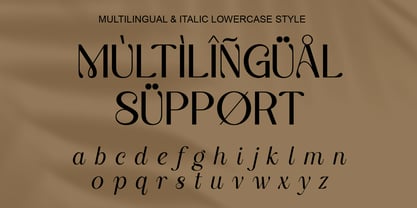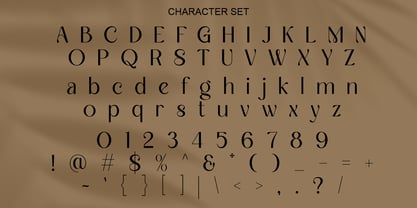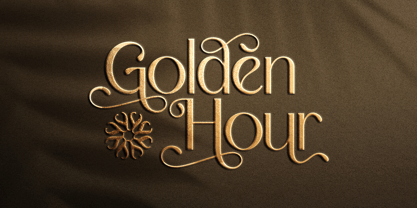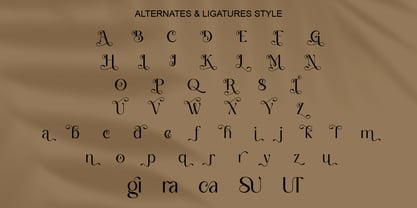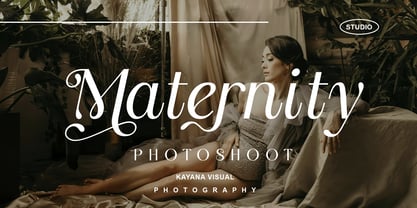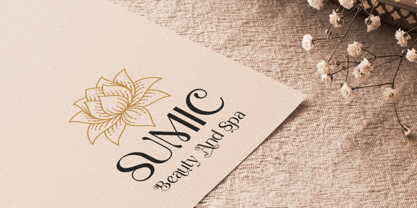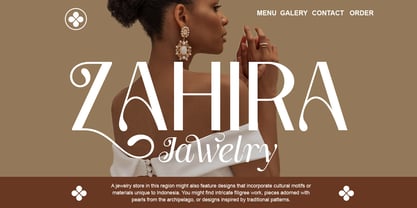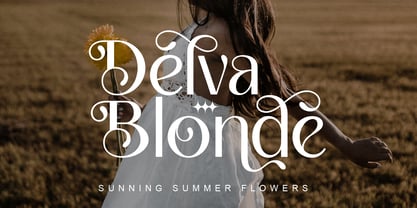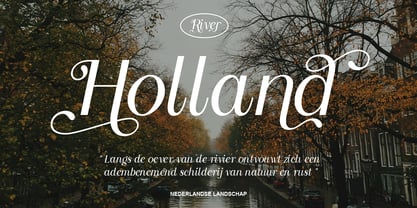
Sparkling Mellow
by RagamKata
The Sparkling Mellow Font Family was designed by Yogiswhara Dio Prakoso Riadi and published by RagamKata. Sparkling Mellow contains 2 styles and family package options. More about this family
Sparkling Mellow is Elegant Sans Serif font with italic. with modern and minimalist look, and brings a luxurious, classy, ​​and clean style to your projects such as websites, modern logos, brand identities, social media quotes, wedding stationery, magazines, and more!
The subtle swoosh and beauty of Sparkling Mellow will make your work elegant and stand out.
- Stylish Alternates
- Multilingual Support
Designers: Yogiswhara Dio Prakoso Riadi
Foundry: RagamKata